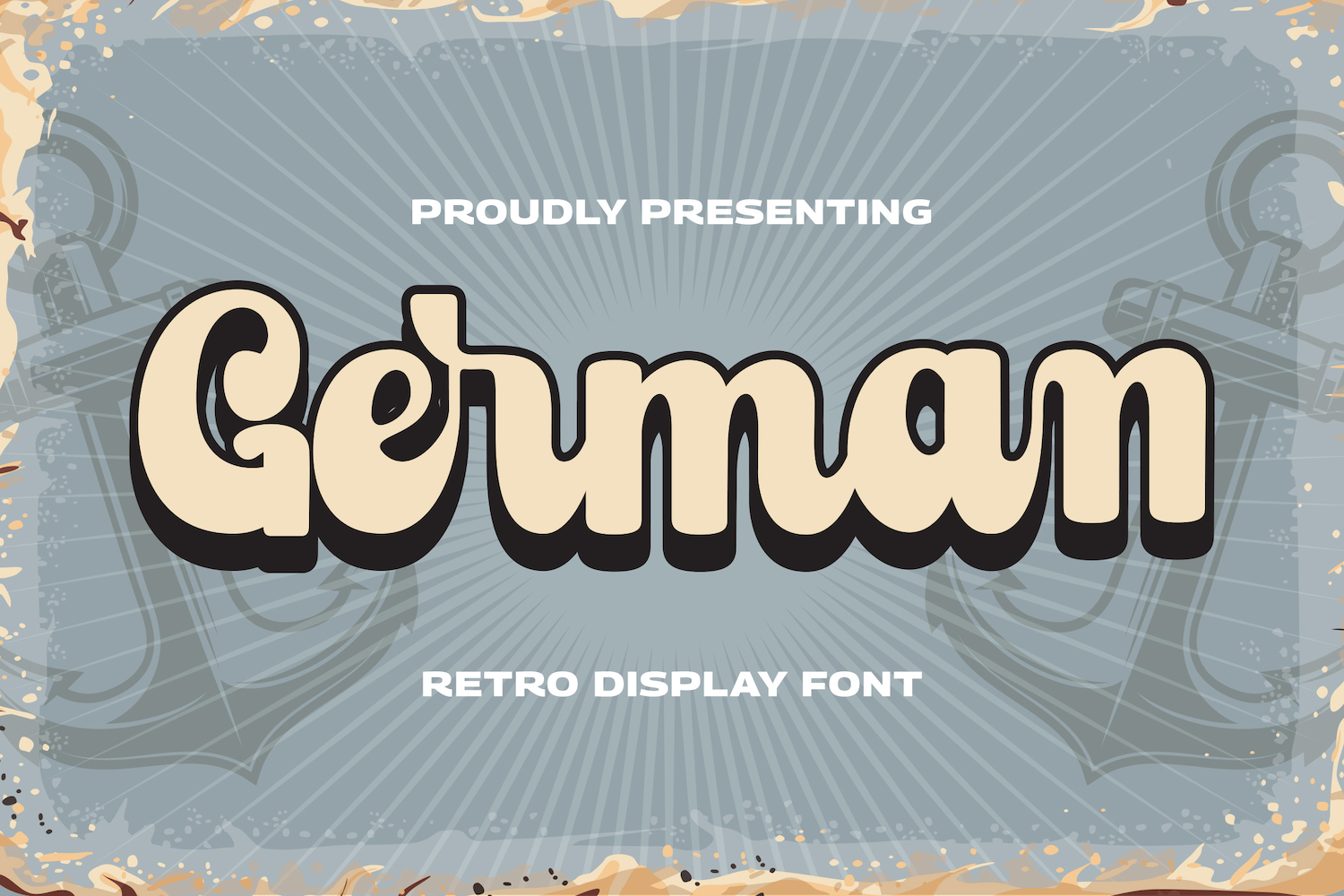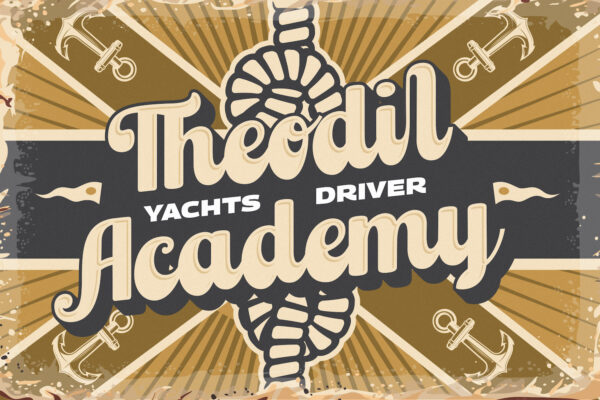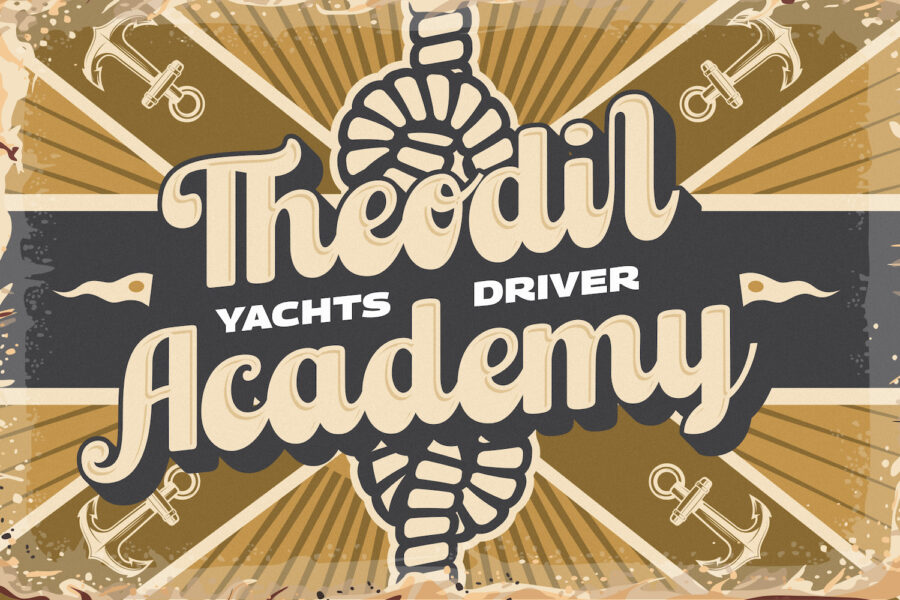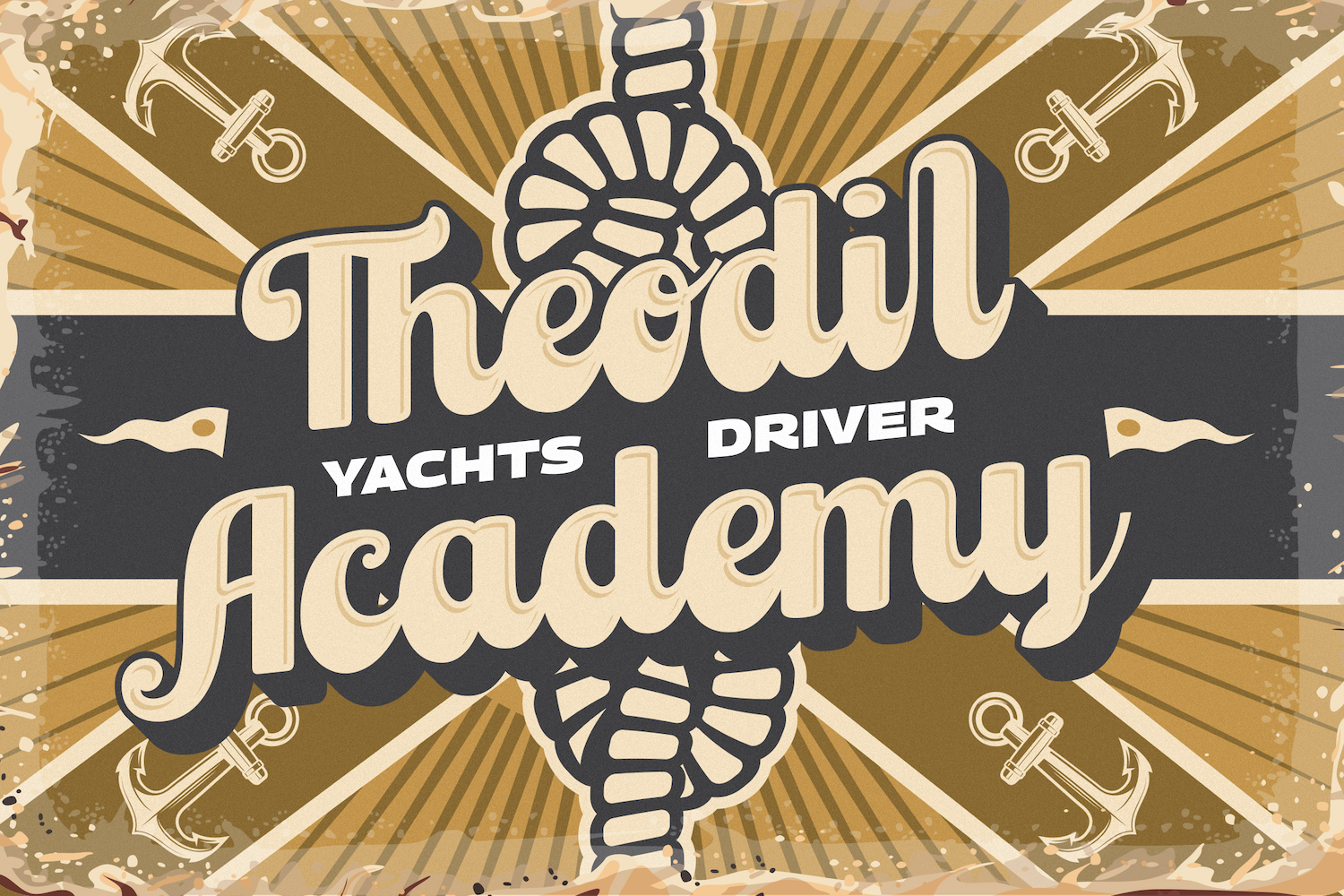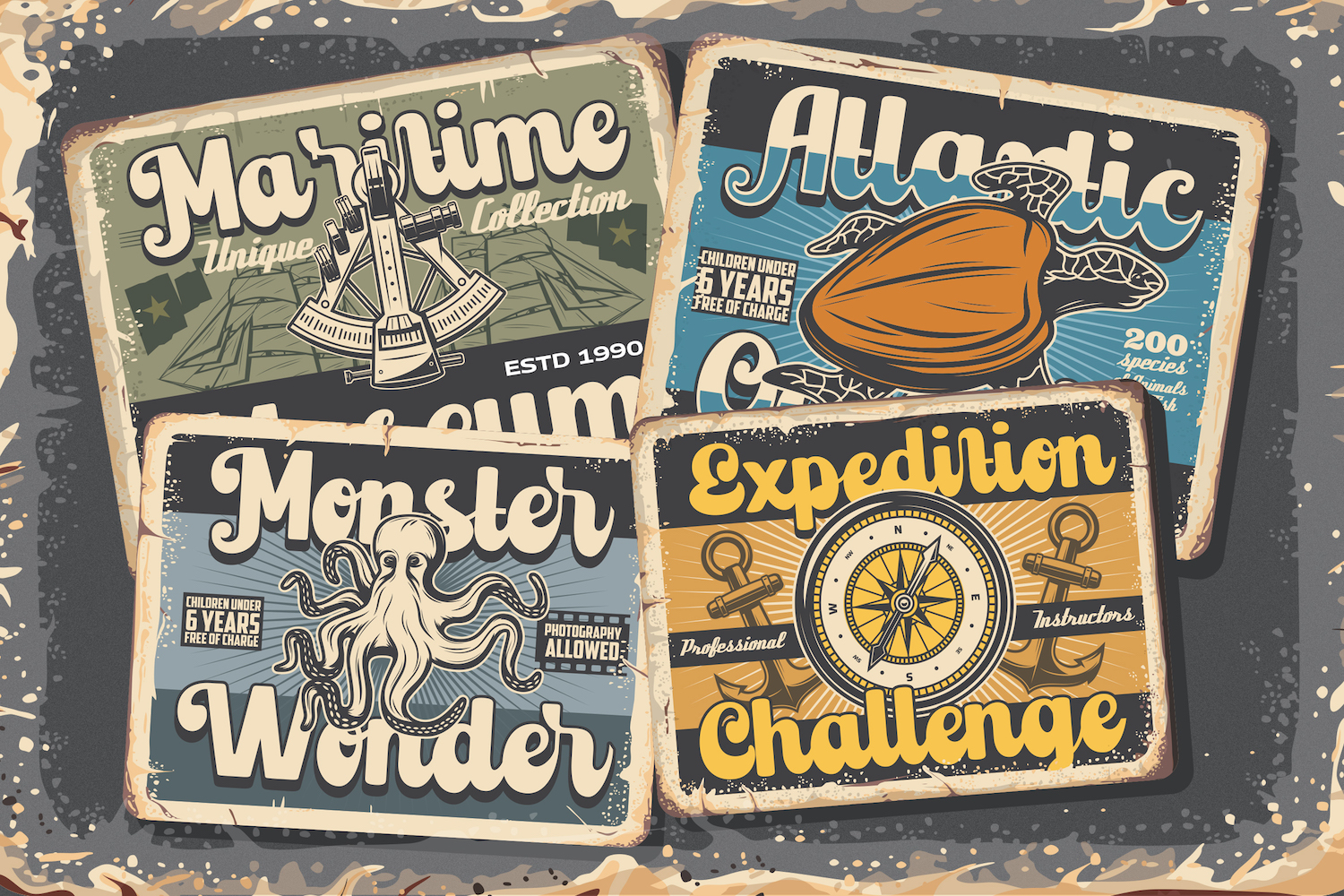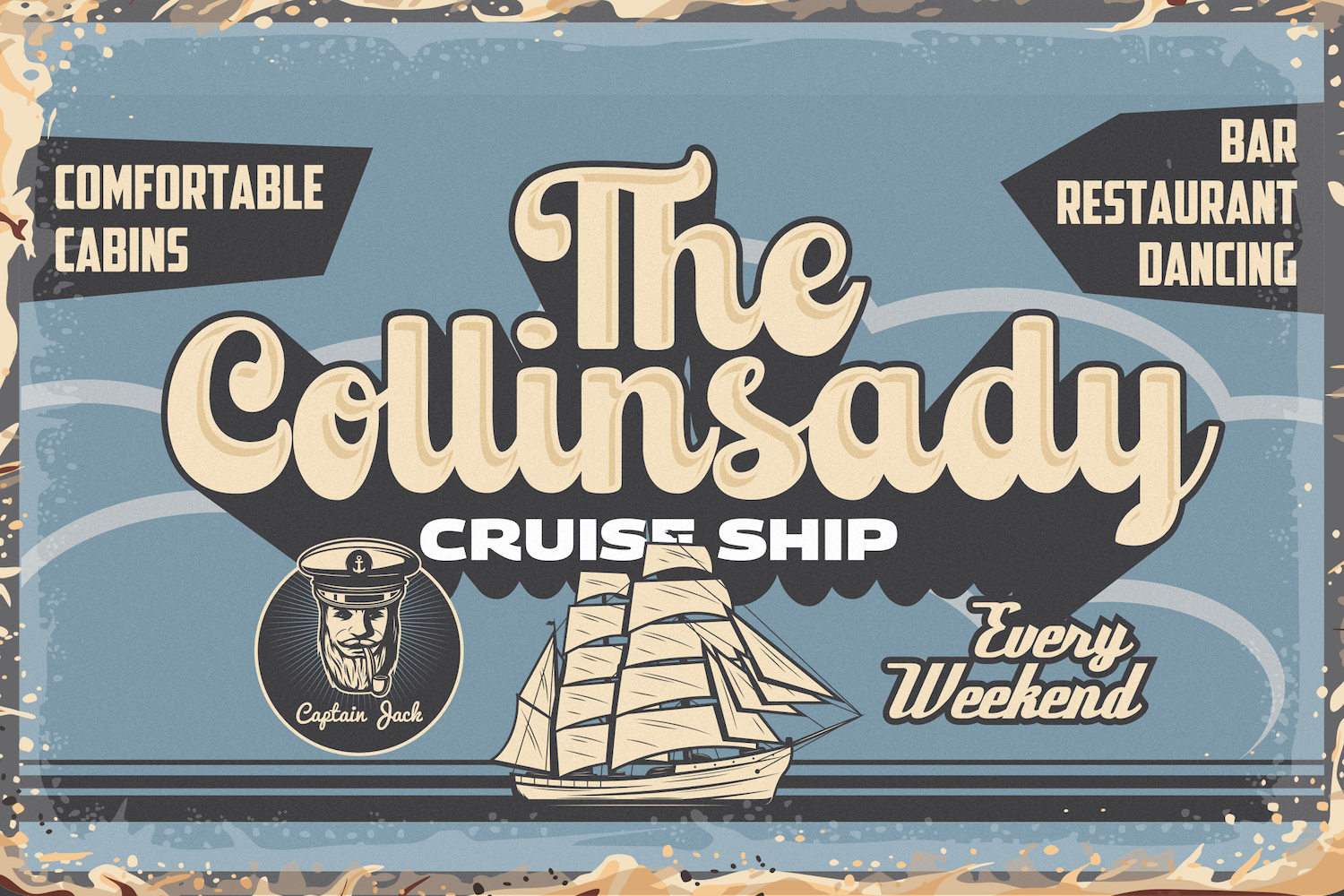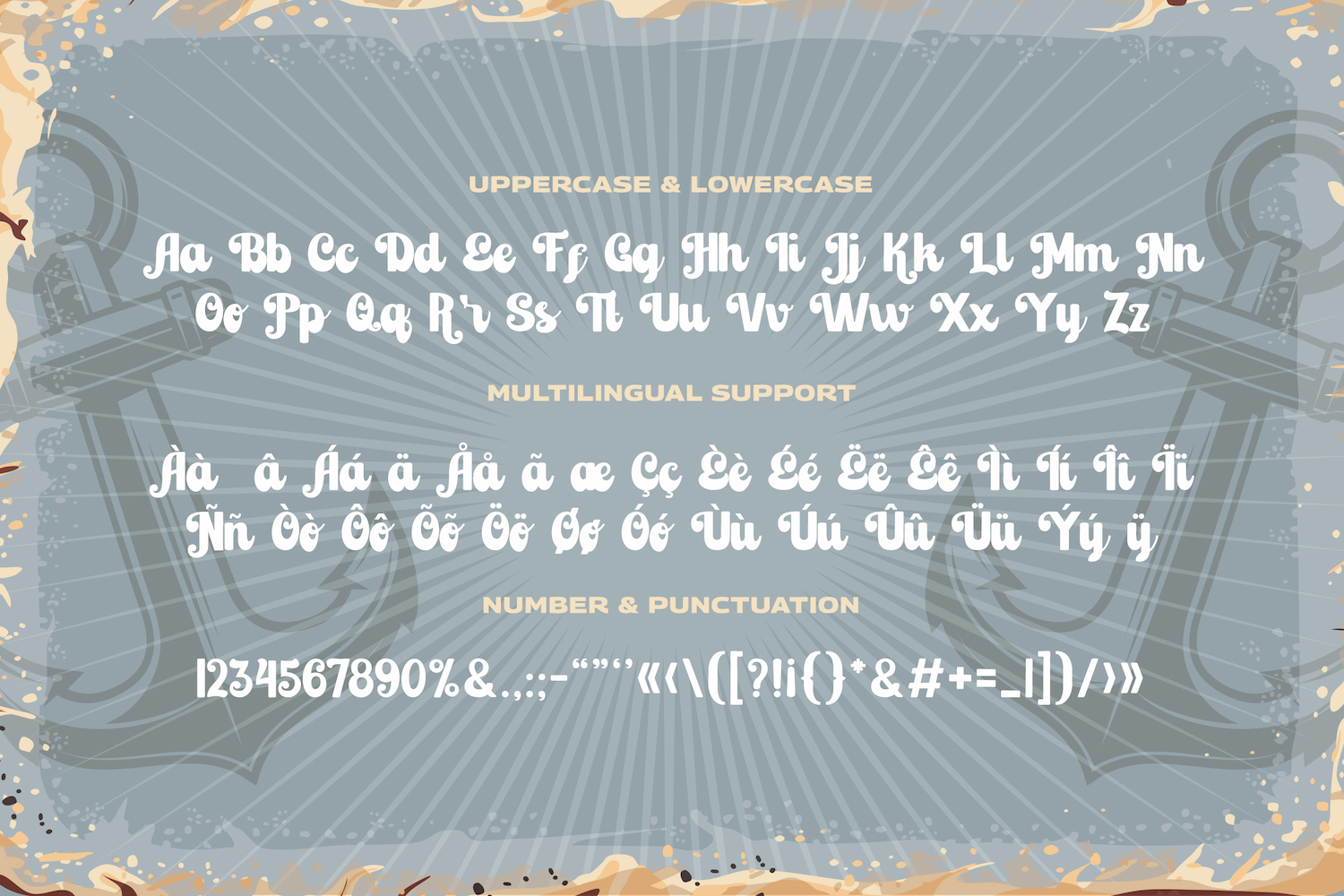
German is a bold retro display font with a nostalgic character and maritime spirit. Its thick, rounded letterforms and playful curves evoke the charm of vintage advertisements, old-school signage, and cruise-themed branding. The heavy shadow gives it a 3D effect that enhances its standout appeal on posters, packaging, or event promotions.
With multilingual support and versatile character sets, German brings a lively and adventurous tone to any project. Perfect for designs that aim to capture a fun, nautical, or vintage vibe. Whether it’s a children’s book cover, themed apparel, or a classic logo.